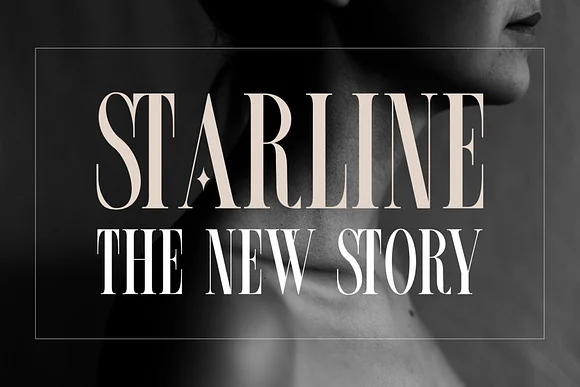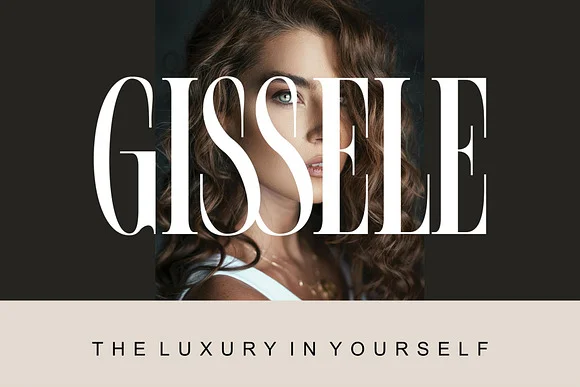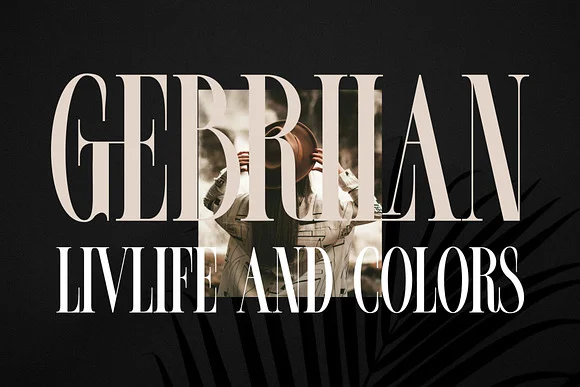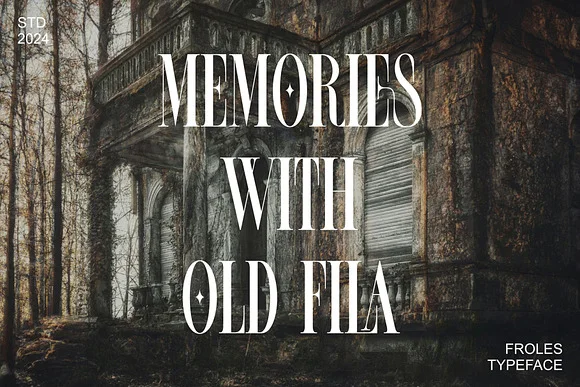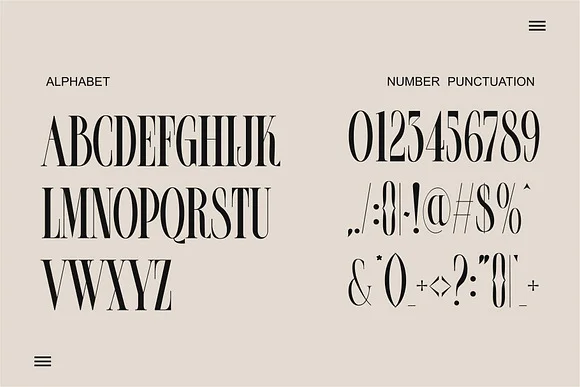
FROLES Modern Serif Font
There is a particular satisfaction in finding a typeface that delivers a confident voice that adapts to diverse briefs without compromise. FROLES Modern Serif consistently provides it. The typeface brings a classically grounded sensibility to a broad range of creative disciplines, with the kind of restraint that lets content lead that holds up whether the work is print-first or screen-first.
In practice, FROLES Modern Serif proves particularly effective for product labels, academic titles, editorial layouts, heritage branding, social media graphics. Designers reaching for it find that the type decisions feel resolved rather than laboured — a useful quality when client timelines are tight.
Each character has been drawn with bracketed serifs and subtle optical corrections that prevent overshoot at display sizes. The contrast ratio between thick and thin strokes guarantees legibility in both print and high-resolution digital contexts.
The range of applications extends to book covers, law firm materials, editorial typography, advertising campaigns. That breadth is deliberate: the proportions and spacing were stress-tested across a wide range of mock briefs before the typeface was finalised.
Graphic designers working on identity systems find FROLES Modern Serif a reliable choice for projects that demand both personality and restraint. The design avoids the self-conscious quirkiness that dates quickly, settling instead for considered distinctiveness that holds up over time.